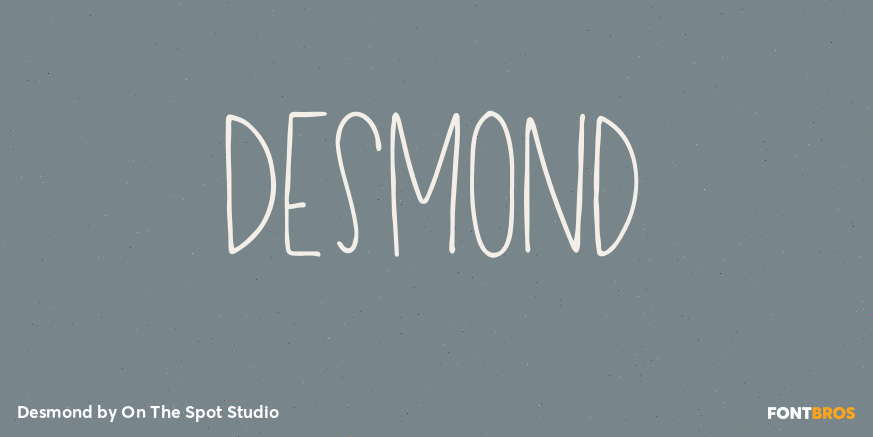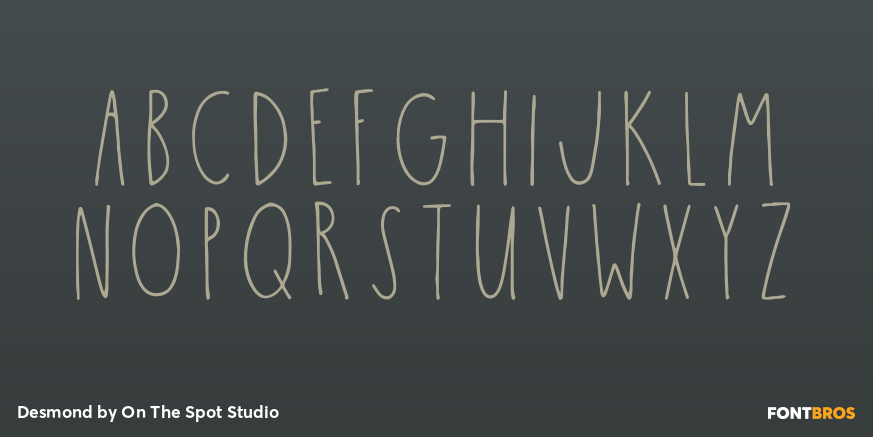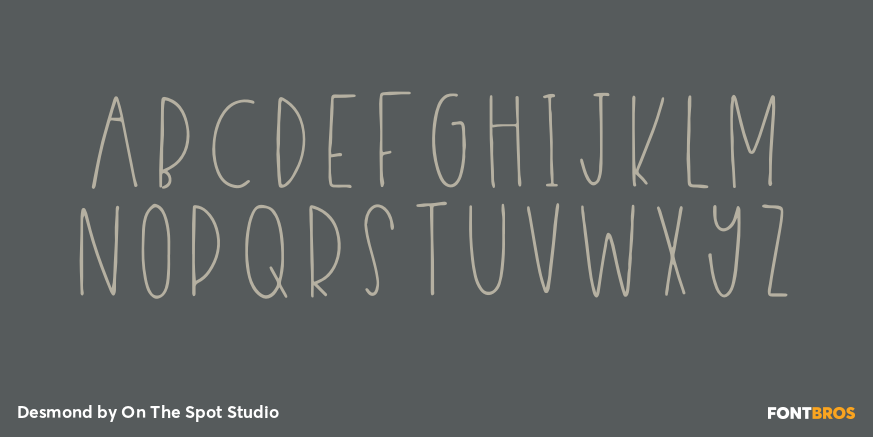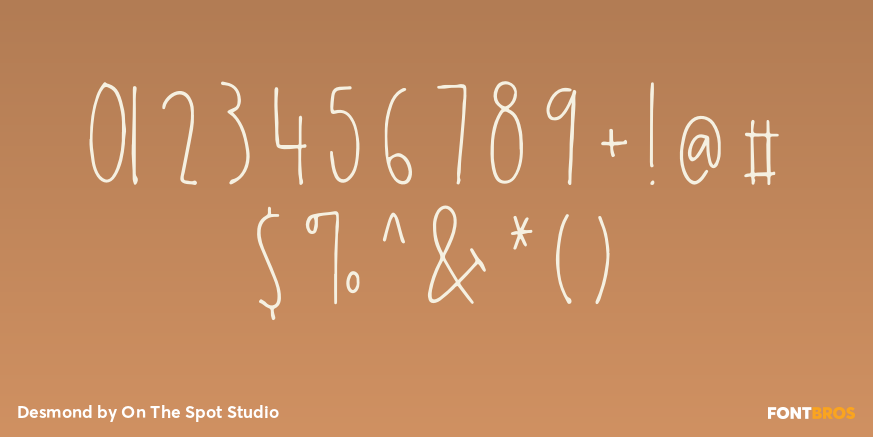
Desmond
Font Family by On The Spot Studio
Desmond is a tall & skinny all uppercase font created by OTSS Includes Uppercase standard letters and alternate uppercase letters for infinite mix and matching!